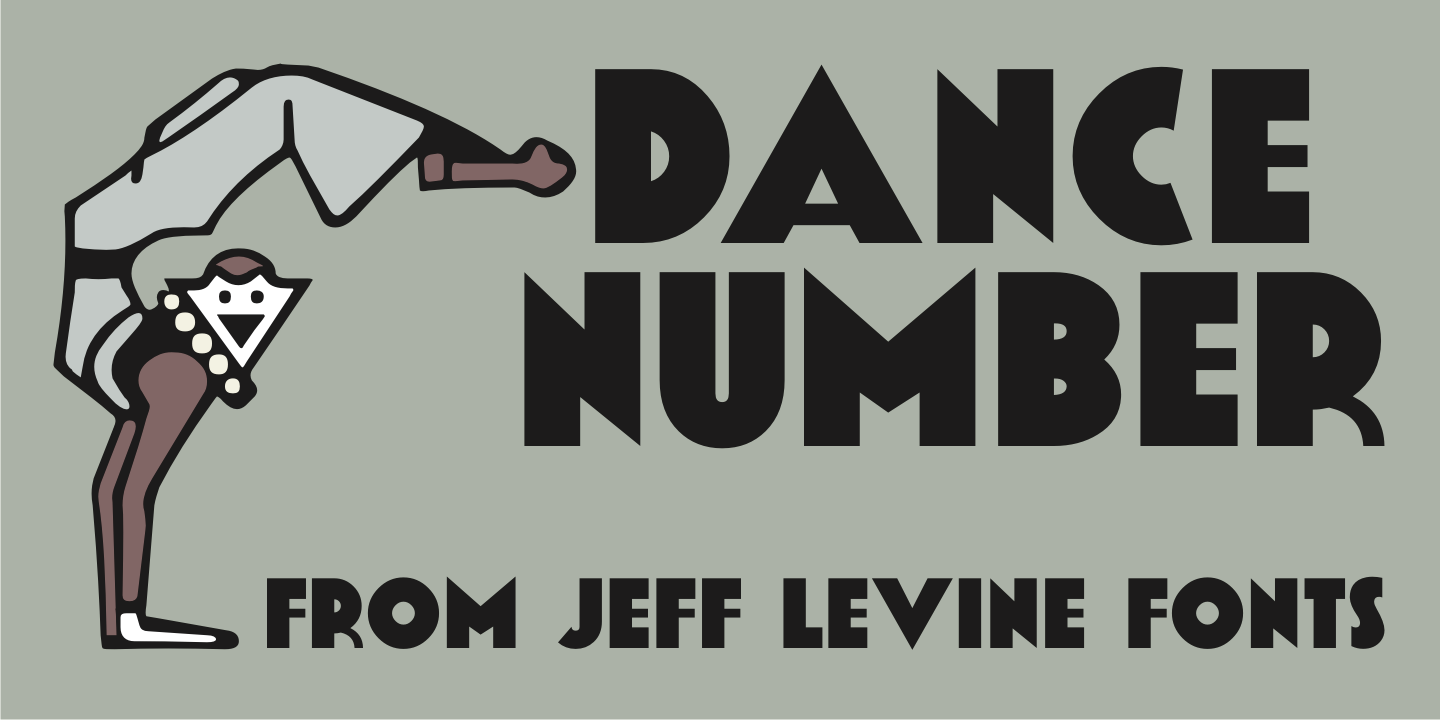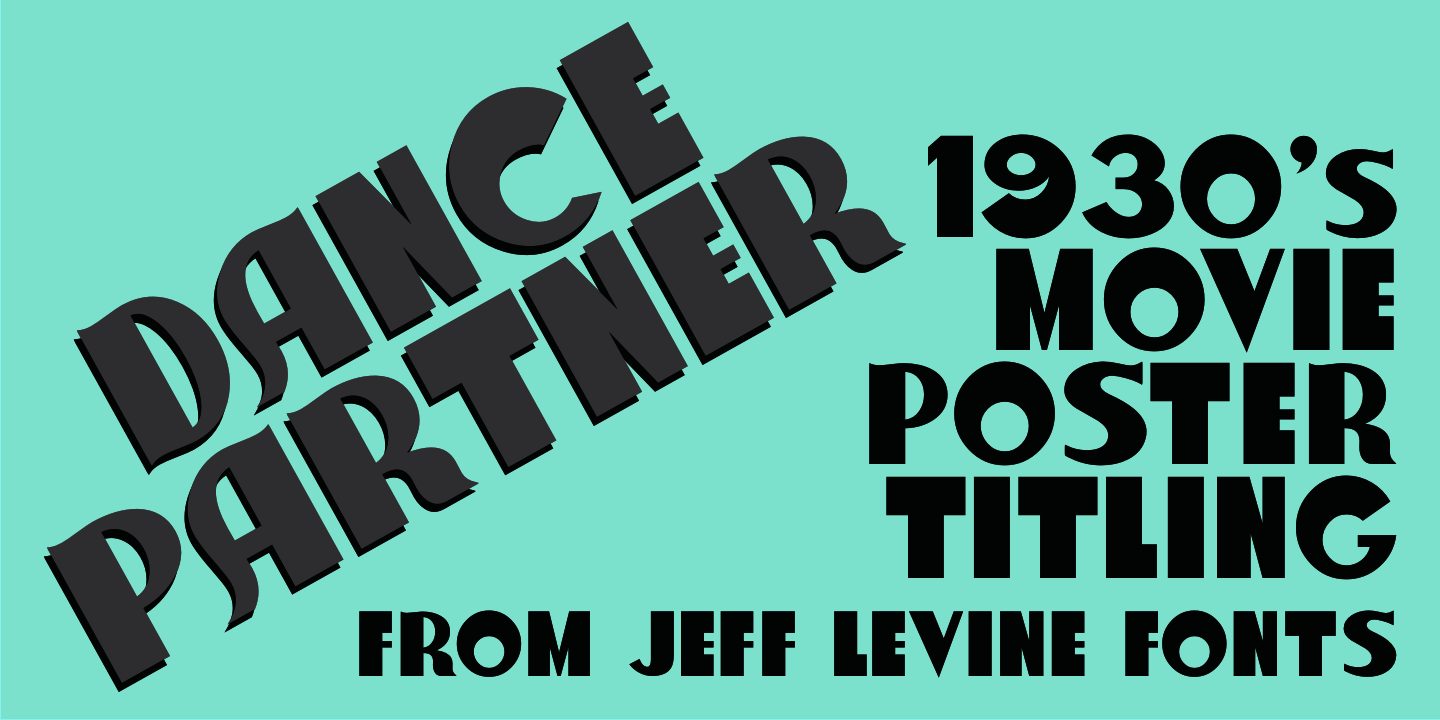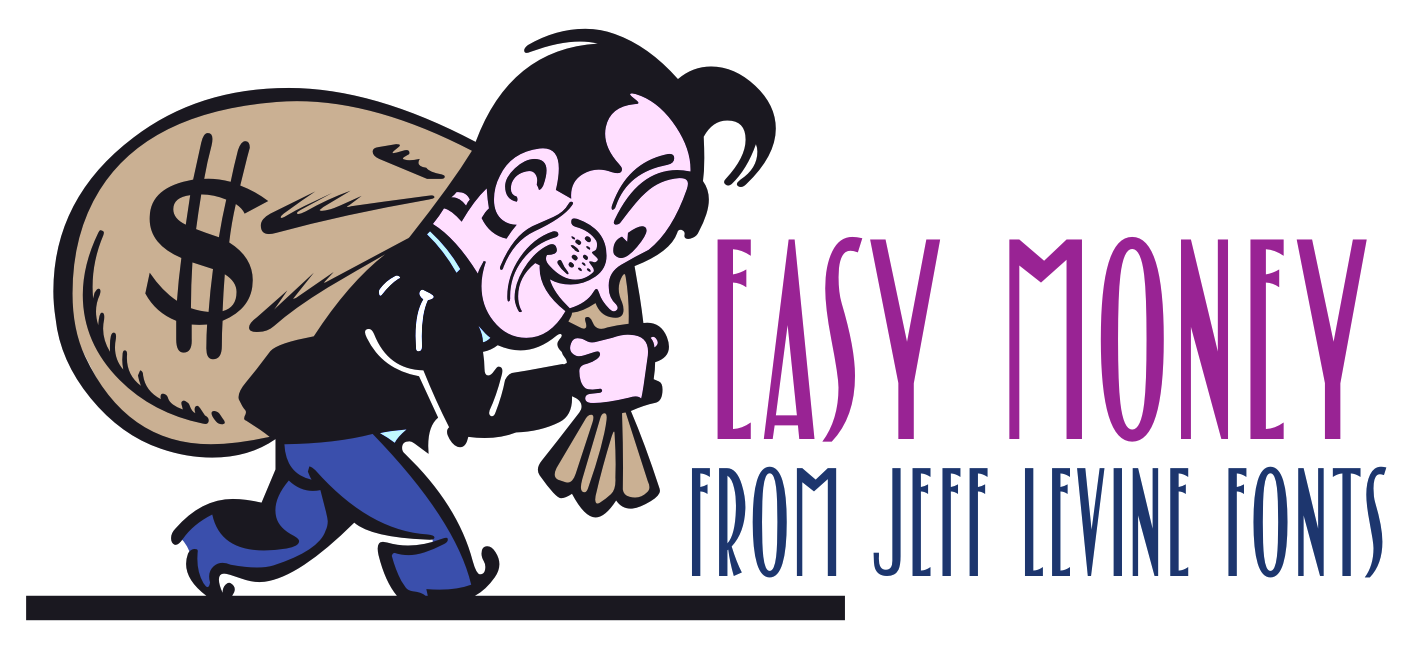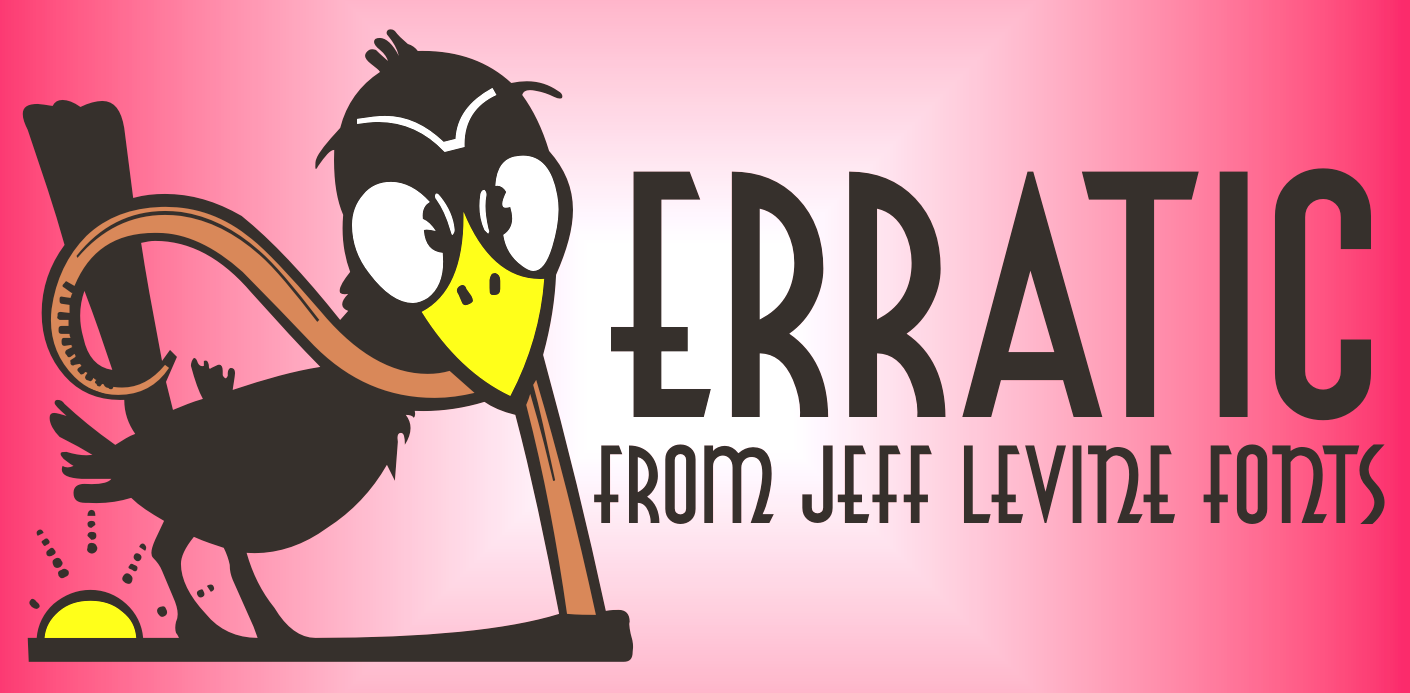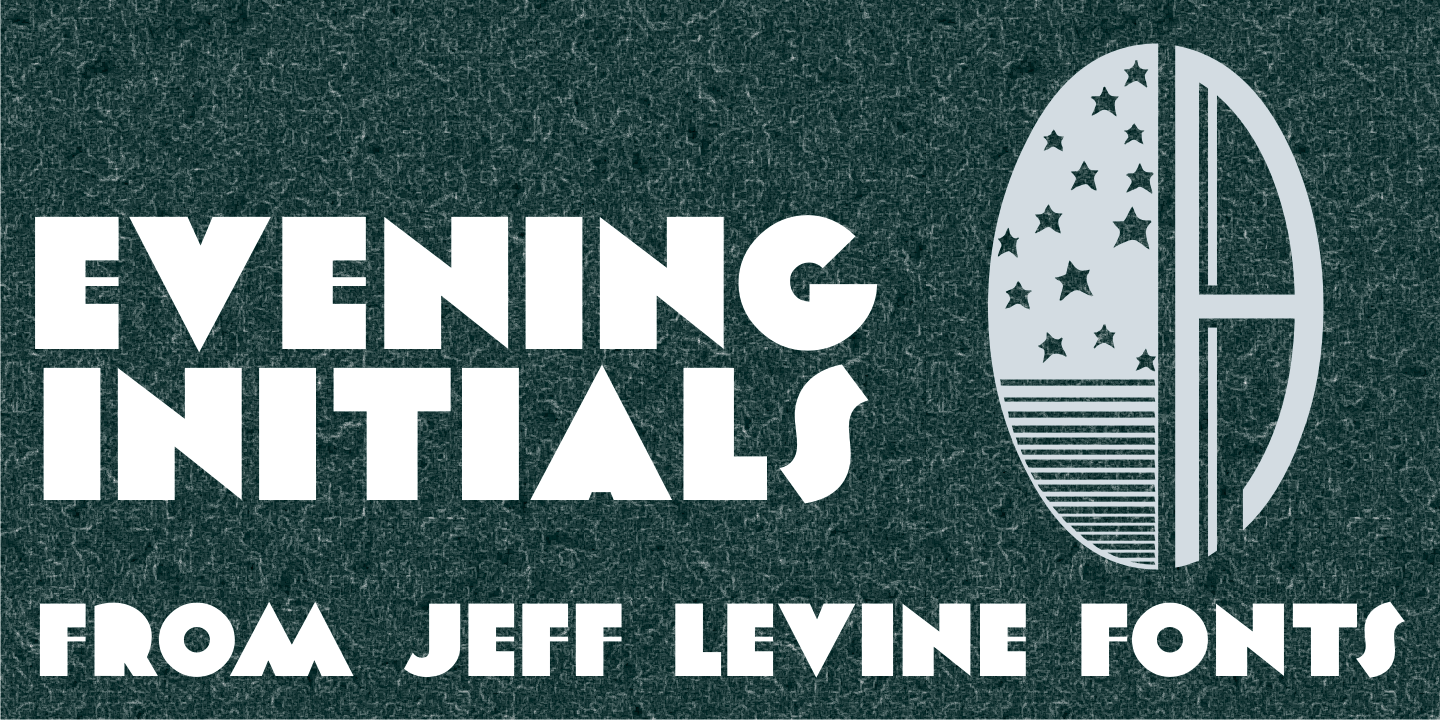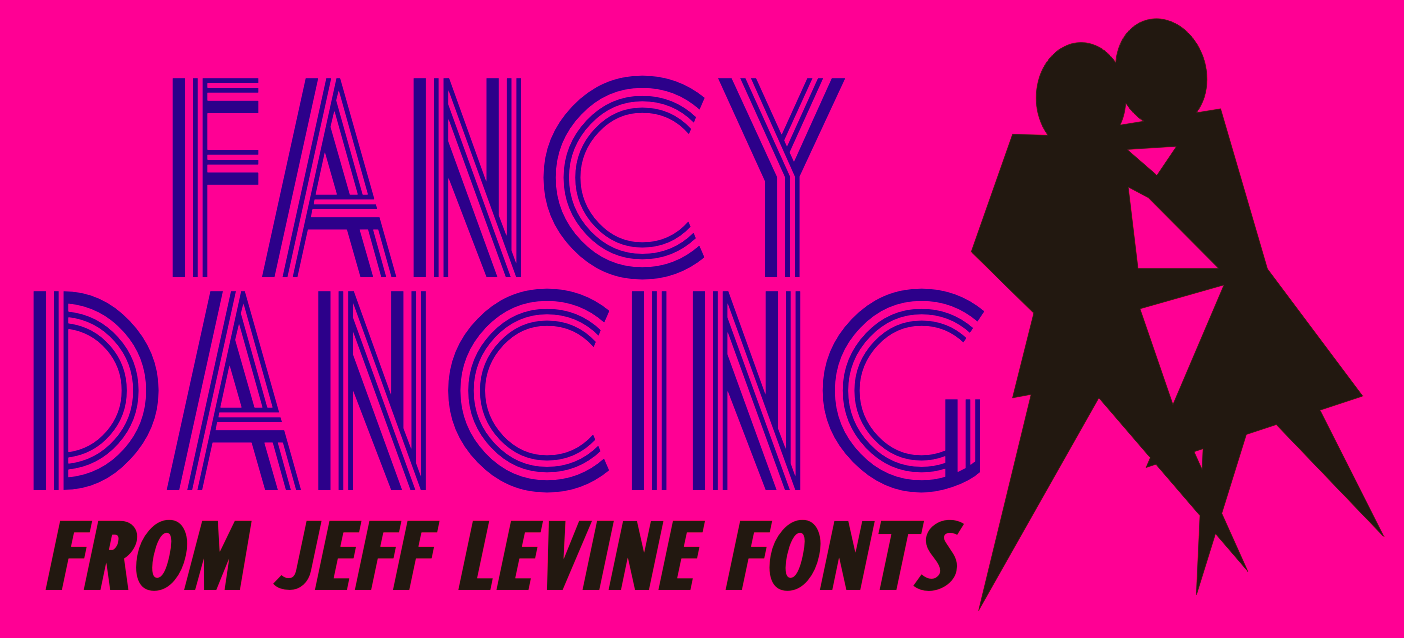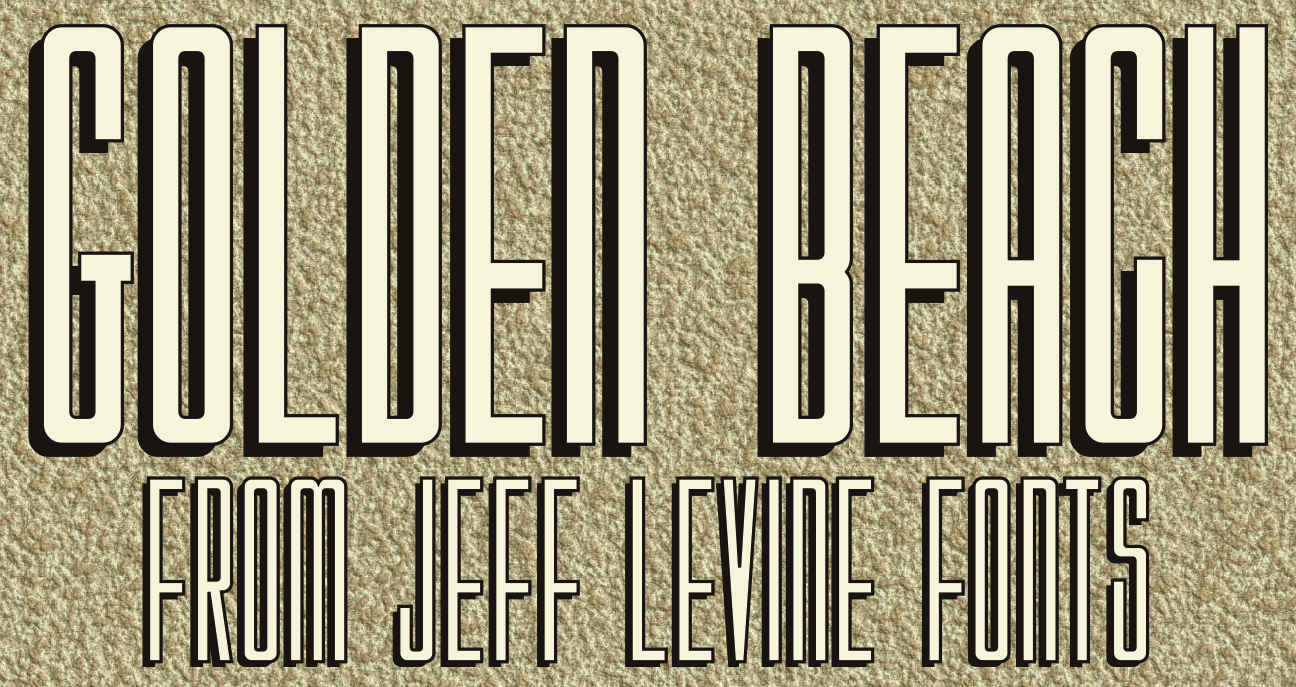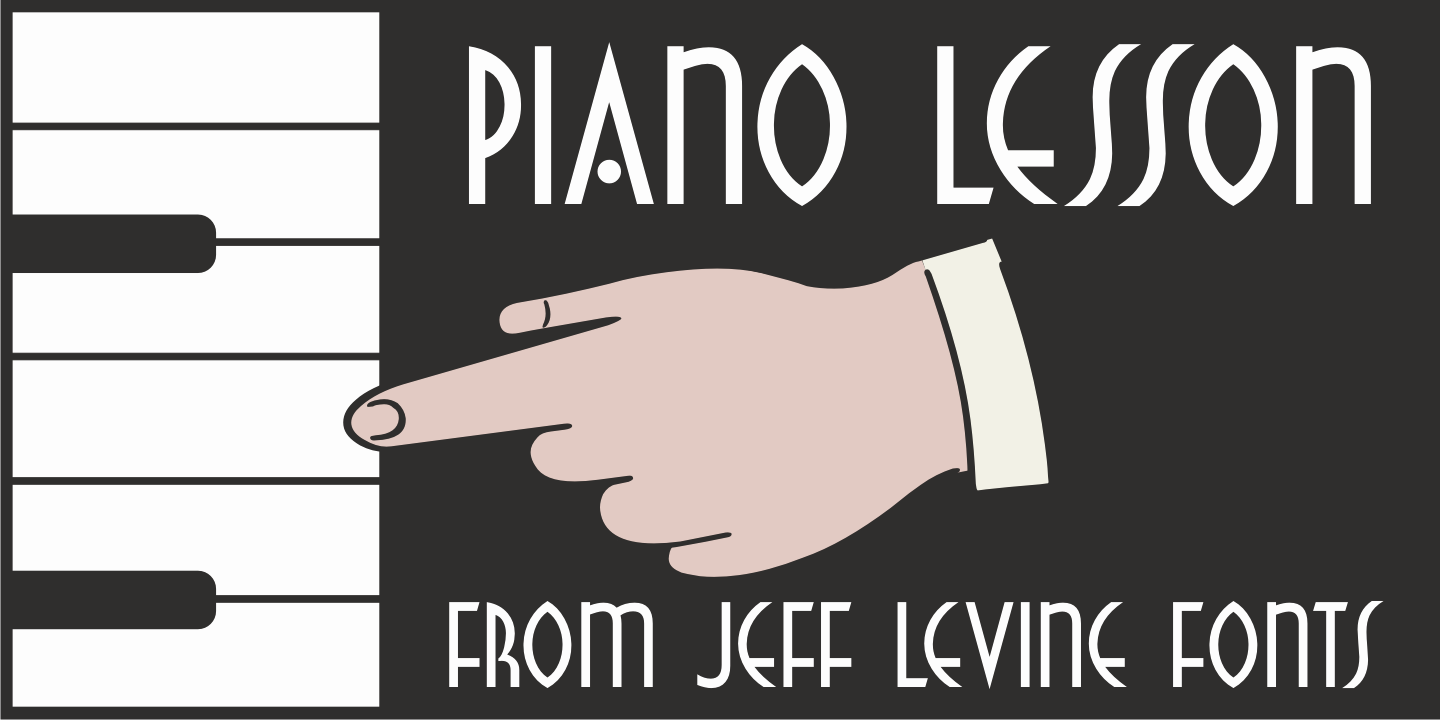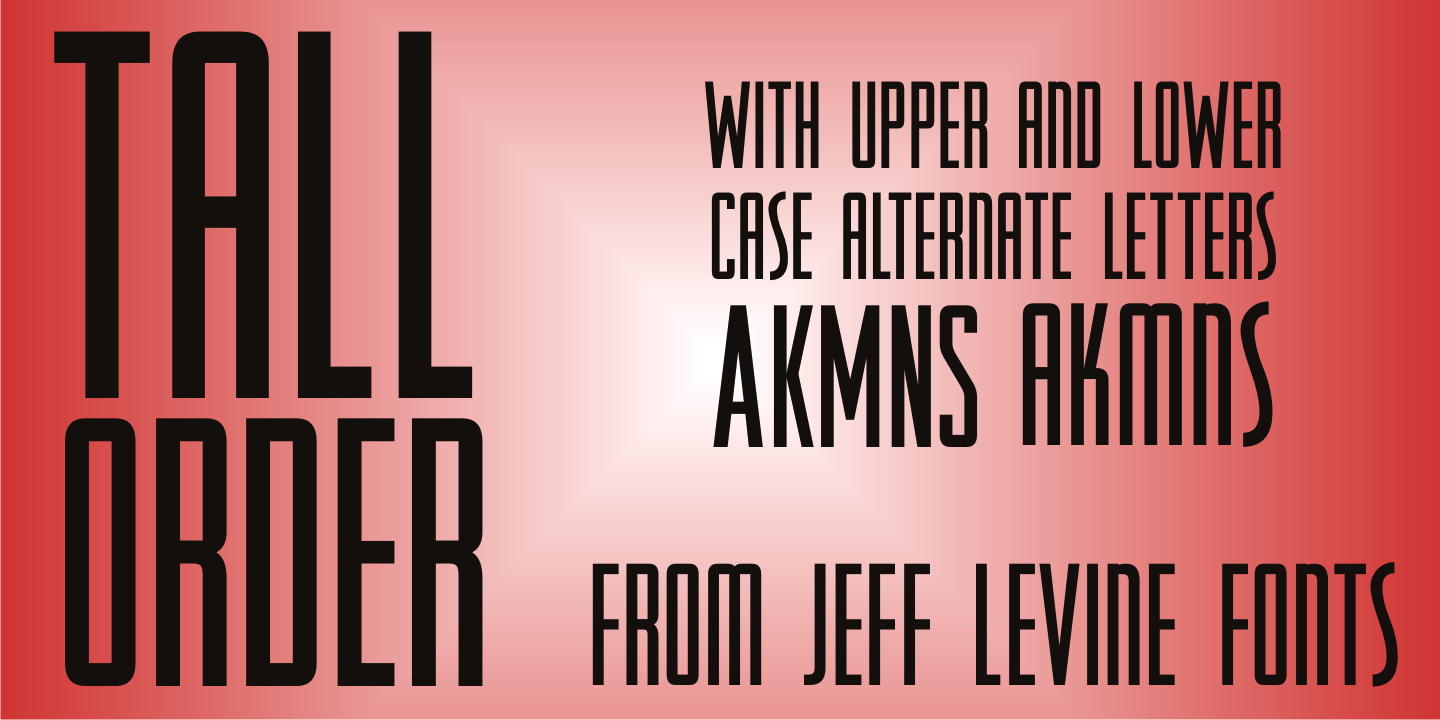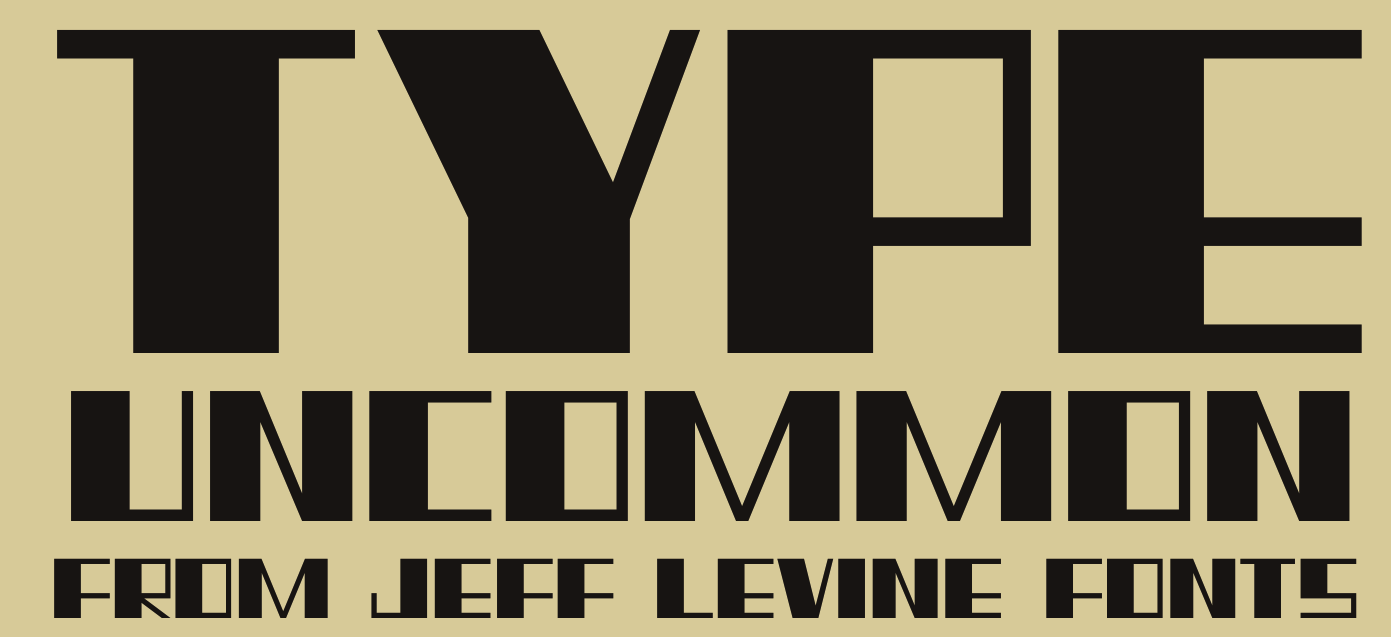
Jeff Levine: Art Deco Faces
Art deco is another style that appeals to Jeff Levine. He has created some beauties: - Acceptable JNL (2014).
- Aircheck (2006, retro CBS font).
- Airliner JNL (2008, all caps, based on a promotional postcard for Kitty Davis' Airliner - a popular Miami Beach night spot of the 1940s).
- Art Class JNL (2014). Art Class JNL was re-created from the titling of a lettering booklet called Drawlet Portfolio, published by the Esterbrook Pen Company in the 1930s. Drawlet pens were Esterbrook's answer to the popular Speedball lettering pens, and the booklet was an instructional manual on hand lettering with the pen nibs.
- Art Lover JNL (2007, based on an art deco typeface from a Dan Solo book).
- Bandleader JNL (2014).
- Bay Ridge JNL (2015).
- Belmont JNL.
- Big Band JNL (2011) is a brash typeface that is based on a lettering example found in a 1941 Speedball Lettering Pen instruction book.
- Blue Orchid JNL (2015).
- Borough Park JNL (2014).
- Brand X JNL (2013),
- Brookhurst (2006, compressed art deco font).
- Cabana Club (2006, Miami Deco inspired font with a razor-thin double outline).
- Cafe Society JNL and Cafe Society Monoline JNL (2014).
- California Bound JNL (2015). Based on the hand lettering found on the side of the old California Zephyr passenger trains.
- Canarsie JNL (2006, a hand-lettered art deco face), Canarsie Slab JNL (2001).
- Casting Call JNL (2015).
- Catalog JNL (2012). A blocky headline typeface.
- Central Park JNL (2014).
- Common Area JNL (2015).
- Contintental Gothic (2006).
- Cortland JNL (2009): modeled [in part] from lettering spotted in the opening credits of Columbia Pictures 1945 Batman serial.
- Cover Charge JNL.
- Crestview Six JNL (2010). And its outline and shadow versions called Gramercy Eight JNL (2010).
- Cut Stencil JNL (2011).
- Dance Number JNL (2015).
- Dance Partner JNL (2015). Based a movie poster for the 1935 RKO picture "Roberta" starring Fred Astaire and Ginger Rogers, which in turn was based on the hit 1933 stage play that introduced the song Smoke Gets in Your Eyes. The play itself was based on the Alice Duer Miller novel Gowns by Roberta.
- Deco Hotel JNL (2015). A hairline deco typeface.
- Deco Geometric Stencil JNL (2015).
- Deco Paragraph Initials JNL (2015).
- Deco Pennant Initials JNL (2013).
- Deco Elongated JNL (2013).
- Delancey JNL (2014). Inline and squarish.
- Design District (2006, art deco inspired design elements).
- Desk Clerk JNL (2010).
- Dine and Dance JNL (2015). Supper club deco, multilined.
- Direkta JNL (2012).
- Double Bill JNL (2013). Inspired by the promotional movie trailer for 1938 gangster comedy A Slight Case of Murder starring Edward G. Robinson.
- Double Line Deco JNL (2015).
- Drawing Tablet JNL (2011).
- East To West JNL (2014).
- Easy Living JNL (2015).
- Easy Money JNL (2014).
- Erratic JNL (2014).
- Estella JNL (2008, starry art deco version of Farragut JNL). Jeff writes: Her father named her Estella Dawn, or morning star. She truly shines bright, for as the owner of Stella Roberts Fonts, she has dedicated part of her net profits to helping her siblings pay for their medication; they both suffer from Cystic Fibrosis and diabetes. Calm in spirit, loyal to friends and family, nurturing and caring, Stella has been a friend of Jeff Levine's for years. His Estella JNL font was dedicated to her, as is this other namesake font, Morningstar JNL.
- Eckhardt Showcard JNL (2008).
- Evening Gown JNL (2015). Based on an ad for the 1935 musical "Roberta" starring Fred Astaire and Ginger Rogers.
- Evening Initials JNL (2015).
- Evening Wear JNL (2014).
- Fanct Dancing JNL (2015). Based on sheet music titling for the 1938 movie musical "Carefree" starring Fred Astaire and Ginger Rogers.
- Faux Decaux (2007, fat art deco).
- Favorite Hangout JNL (2009).
- Film Noir (201). A counterless art deco typeface based on Alf R. Becker's examples.
- Finery JNL (2014).
- Floorwalker JNL (2013). Based on stncils made in 1926 by Display Material Company of St. Paul, MN.
- French Pastry JNL (2015).
- Frisco Bay JNL (2007, a nice art deco).
- Gambling Resort JNL (2014).
- Gidley (2007).
- Golden Beach JNL (2015).
- Golden Opportunity JNL (2015).
- Grand Central JNL (2010): multi-line Art Deco font is reminiscent of all of the glitz and glamour associated with Manhattan in the 1930s and 1940s.
- Hollenbeck JNL (2008).
- Hollywood Revue JNL (2015). Inspired by a movie poster for The Hollywood Revue of 1929. .
- Home Movies JNL (2012). Based on 1950s cling vinyl letters made by the Clingtite Letters Company of Chicago.
- Huntington (2006, an art deco typeface inspired by the opening titles of the film Casablanca).
- Juke Joint JNL (2014).
- Lauderdale JNL (2013).
- Limousine JNL (2010, counterless, caps only).
- Love Song JNL (2014).
- Malagueña Stencil JNL (2015).
- Maplehurst JNL (2010): a beautiful rounded ultra-fat face.
- Market JNL (2009).
- Metalworker JNL (2009), and its star-spangled derived face, NationalSpiritJNL (2009).
- Metalet Modern JNL (2008, based on the letters found within the Metalet Movie Titling Set manufactured by the Modern Display Advertising Company of Hollywood, California circa the 1940s. Each stamped metal letter would be affixed to the background surface via the use of miniature magnets. Once in place, titles for home movies or slides could be photographed, the letters then returned to their storage area in their box.).
- Midtown JNL (2010) and its serifed version, Crosstown JNL (2010).
- Millbrae JNL (2015). Named after the old Millbrae Theater in Millbrae City, CA.
- Monoline Deco JNL (2014).
- Monthly Adventures JNL (2012).
- Movie House JNL (2013). A trilined typeface.
- Mulholland JNL (2015).
- Musical Number JNL (2015).
- Night Life JNL (2012).
- Nightspot JNL (2011). A bilined headline typeface based on lettering by Alf R. Becker.
- Nightowl JNL (2011): a headline font encased in rectangles inspired by an Art Deco hand-lettered alphabet found in a 1941 edition of the Speedball Lettering Pen instruction book.
- Nouveau Poster JNL (2011). based on an alphabet found in Modern Pen Lettering (1915, C. Howard Hunt pen company).
- Nyack (2010, Inline, Solid, Monoline): tall, caps only.
- Parkitecture JNL (2006): counterless and fat.
- Pencil Pusher JNL (2014).
- Period Piece JNL (2015).
- Piano Lesson JNL (2015).
- Piano Solo JNL (2015).
- Playwright JNL (2010): Levine's version of Broadway.
- Old Miami Beach JNL (2012). Based on signs of the Roney Plaza hotel in South Miami Beach.
- Opening Night JNL (2013).
- Ormond JNL (2011) and Ormond Inline JNL (2011). The latter is a blackboard bold style face.
- Pocomoke JNL (2015).
- Prospect Park JNL (2015).
- Regal Suite (2006, display art deco).
- Ridgewood JNL (2012).
- Ritz Stencil JNL (2011).
- Roney JNL (2008, a stylized version of his own art deco typeface Metalet Modern).
- Screenplay JNL (2010): modeled after the signage seen in an old photo of the RKO movie studios building circa the 1930s.
- Service Deluxe JNL (2015).
- Sheet Music JNL (2011).
- Show Biz JNL (2013).
- Showgirl JNL (2011). Based on the neon letters of a 1940s marquee.
- Showpiece JNL (2014).
- Signage JNL (2013). A stencil in the style of Futura Stencil.
- Sleuth JNL (2013, after the trailer for the 1936 movie After The Thin Man).
- Song And Dance JNL (2014).
- Song Sheet JNL (2014).
- Space Deco JNL.
- Stage Play JNL (2015).
- Summerhaven JNL (2009).
- Society Dame JNL (2008).
- Solitude JNL (2015).
- Song Folio JNL.
- Stationery Department JNL (2015).
- Streamlined Stencil JNL (2015).
- Striptease JNL (2012). A 1930s burlesque show marquee typeface.
- Stagehand JNL (2014).
- Stuffed Shirt JNL (2013).
- Stylette JNL (2007, an art deco typeface after Stylor JNL).
- Stylor JNL (2006, hairline art deco).
- Suggestion Box JNL (2015).
- Supper Club JNL (2007).
- Swing Era JNL (2015).
- Table Fortu JNL (2007, art deco stencil).
- Tall Order JNL (2015, a revival of Raleigh).
- Tanawonda JNL (2010).
- Thoroughfare JNL (2014).
- Tin Pan Alley JNL (2014).
- Top Hat JNL (after Art Lover JNL).
- Town And Country JNL (2014).
- Triborough JNL (2008).
- Tropical Tourist (2011). A 1934 advertisement for the Roney Plaza Hotel at 23rd Street and Collins Avenue on Miami Beach yielded the inspiration for Tropical Tourist JNL.
- Type Uncommon JNL (2015).
- Upscale JNL (2014, based on a 1939 alphabet by Sanford Ink Company).
- Uptown JNL (2013). Based on the book Sixty Alphabets (1944).
- Uptown Line JNL (2015).
- Uptown Residence JNL (2015).
- Van Wyck JNL (2008).
- Variety Store JNL (2015).
- Vaudeville JNL (2012).
- Vocalist JNL (2014).
- Westbrook JNL (2012, a monoline all-caps typeface), Window Dressing JNL (2012).
- Window Treatment JNL (2013). A Broadway style marquee face.
- Wingate JNL (2006, a narrow monolinear art deco type).
- Wonderful JNL (2014).
- Words And Music JNL (2014). Based on the 1934 sheet music for I'll String Along with You from the Dick Powell-Ginger Rogers musical 20 Million Sweethearts.